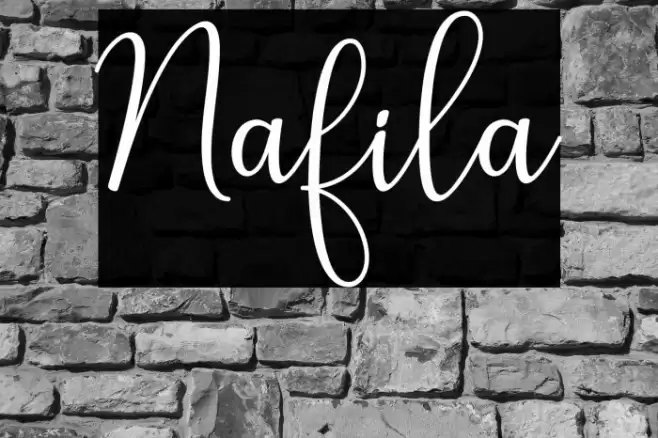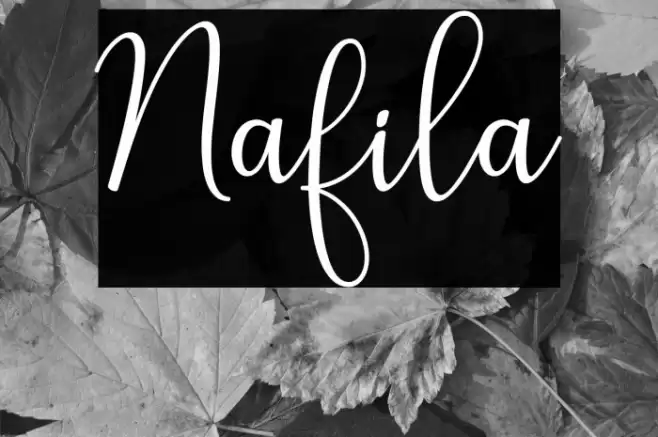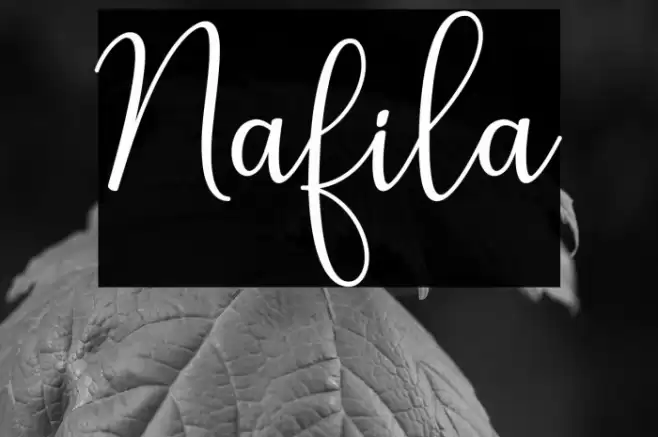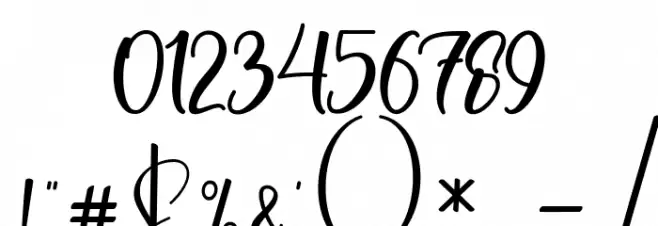
Nafila Font
Nafila Description
This elegant script font features fluid, cursive strokes that create a sense of sophistication and grace. The uppercase letters are characterized by sweeping loops and flourishes, while the lowercase letters maintain a consistent flow with gentle curves. The numerals are stylishly integrated, matching the overall cursive theme. Special characters are thoughtfully designed to complement the alphabet, adding versatility to the font. The overall appearance is both decorative and legible, making it suitable for a variety of creative applications.
An elegant script font with fluid, cursive strokes and decorative flourishes from Uncategorized fonts.
- Proposed Projects: Ideal for wedding invitations, greeting cards, branding, and elegant logo designs.
- Overall Style: Elegant, Decorative
- Use Case: Logos, Invitations, Decorative text